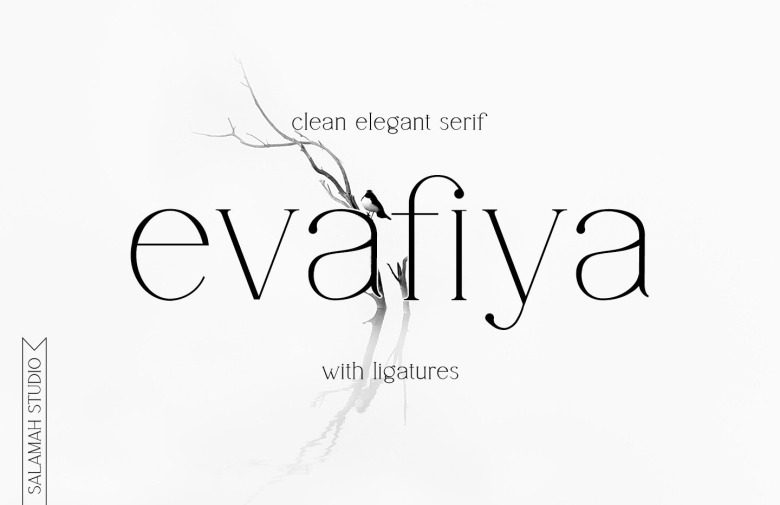
Evafiya Font
Evafiya is a thin lettered, tall and elegant serif font. Masterfully designed to become a true favorite, this font has the potential to bring each of your creative ideas to the highest level!